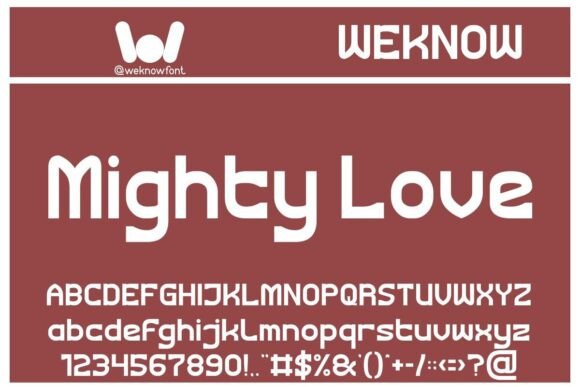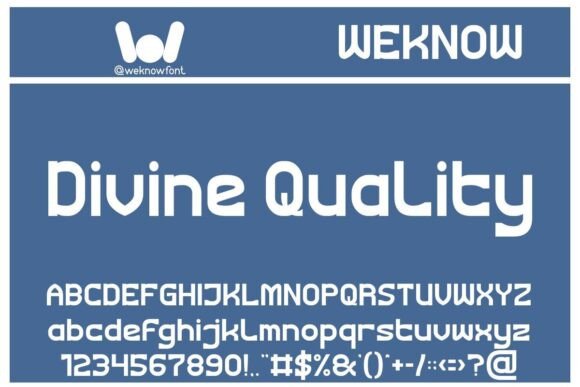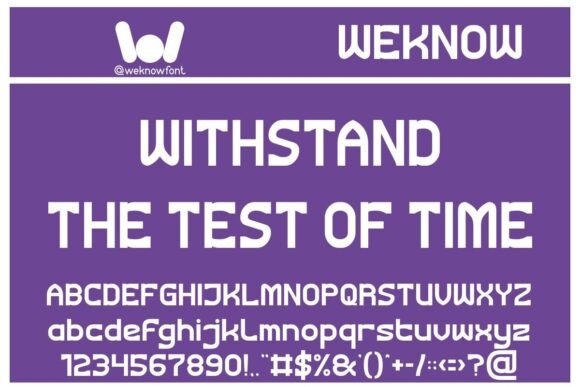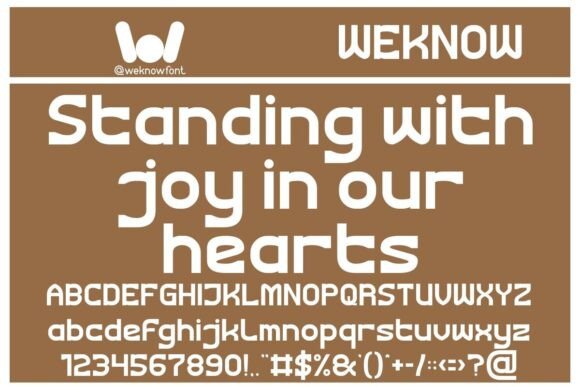
Mighty Love Font
About the Mighty Love Font
From logos to headlines, the Mighty Love Font is the perfect choice for making a lasting impression. Introducing Mighty Love, your go-to choice for an eclectic yet geometric sans serif font, defined by its bold curves, playful character, and casual elegance. With its dynamism and versatility, Mighty Love is perfect for gracing headlines or ampersanding logos and logotypes, adding a touch of robust charm to corporate and brand identities. Let it take center stage in the apparel industry, bringing a clean and modern edge to your designs. Whether you’re crafting a striking poster or designing immersive games, kindling your music and movies with a stylistic flair, Mighty Love will be your reliable typographic partner. With its distinct personality, it can breathe new life into magazines, books, comics, and cartoons; facilitate appealing YouTube and Instagram content; or add a distinct flavor to your website. Let Mighty Love transform your creative pursuits into remarkable design projects.
Mighty Love Font Usage Examples
Mighty Love Font Example